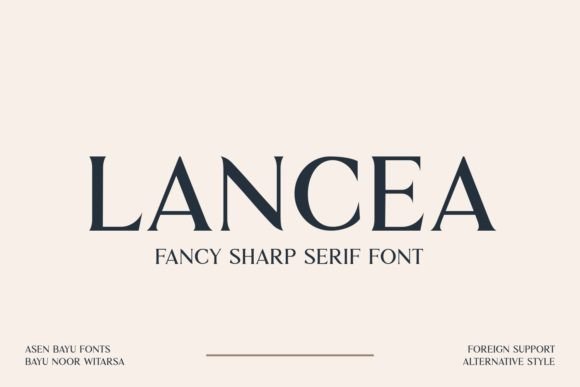
Are you looking for the perfect serif font for your next project? Look no further than Lancea Font, the best font for web design in 2014. Created by asenbayu, this fancy sharp serif font is sure to elevate your designs to the next level.
Inspired by medieval roman writing and the sharpness of a lance, Lancea Font exudes sophistication with a sleek and clean accent. Its unique design makes it perfect for luxury brand logos, journals, business cards, headlines, social media posts, and so much more. Plus, it's PUA encoded, which means accessing all the glyphs and alternates is a breeze.
Whether you're looking to create a stunning logo for your business or an eye-catching social media post, Lancea Font has you covered. With its captivating design and endless possibilities, this font is sure to make your projects stand out.